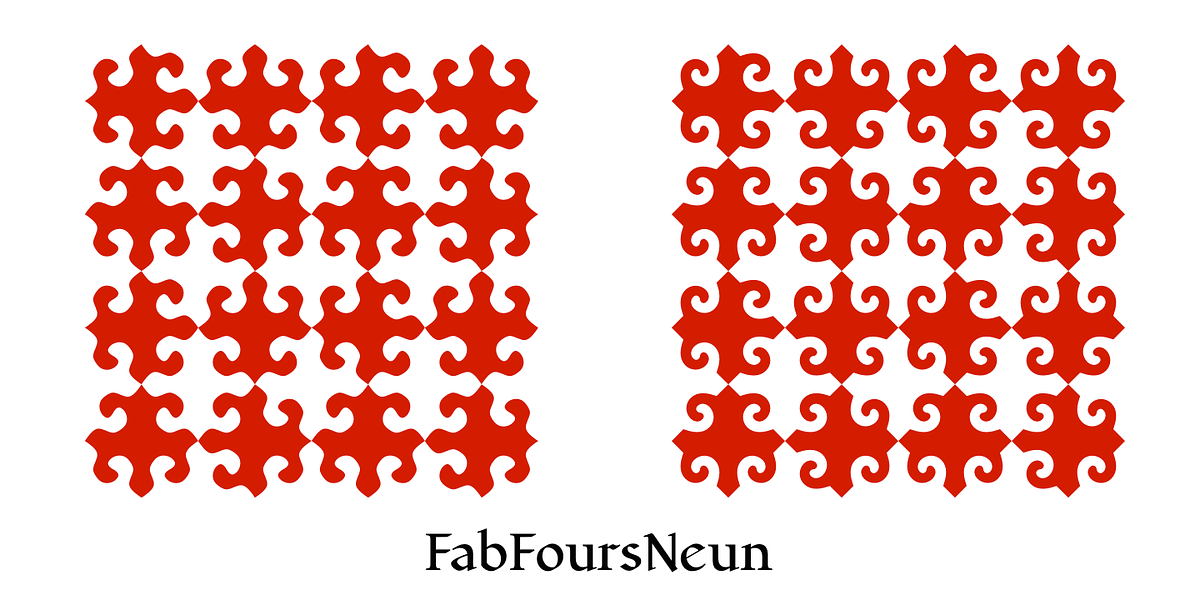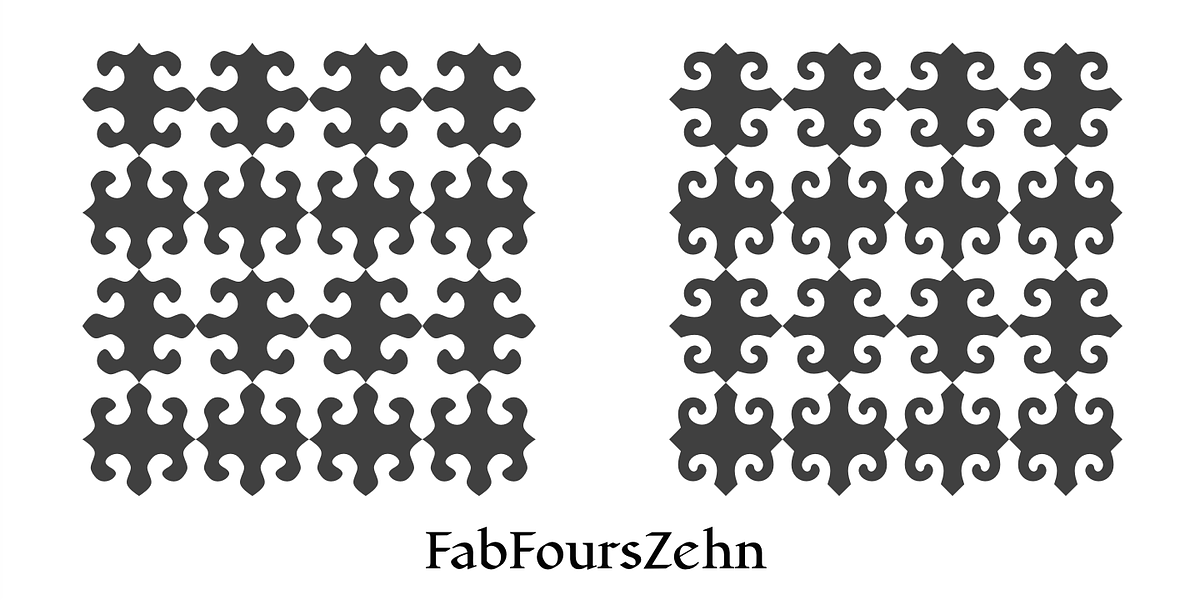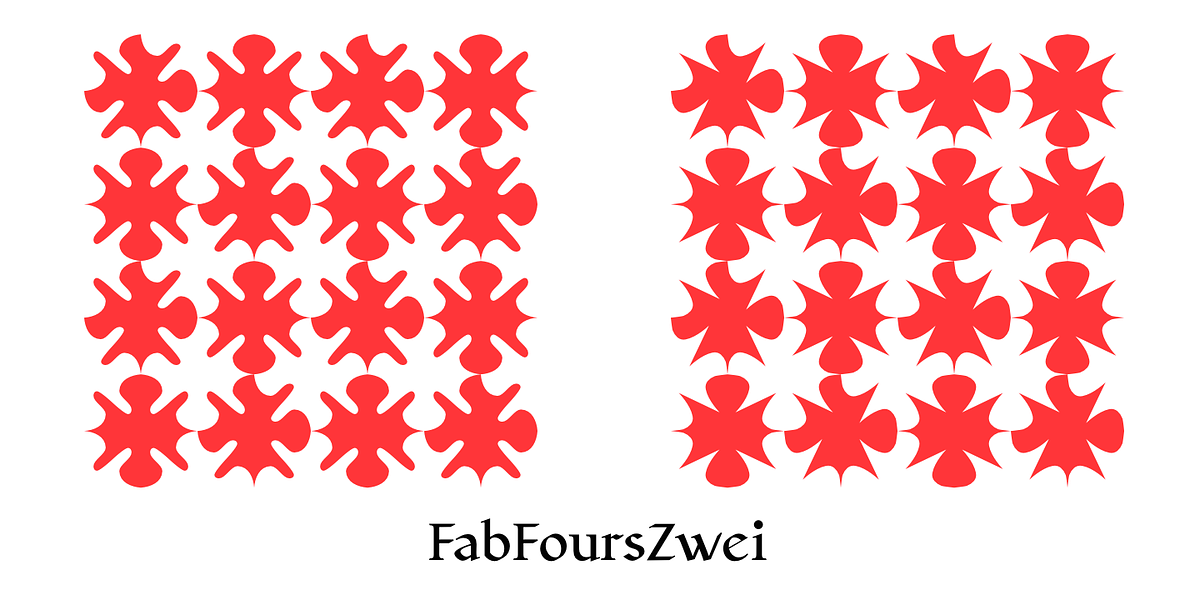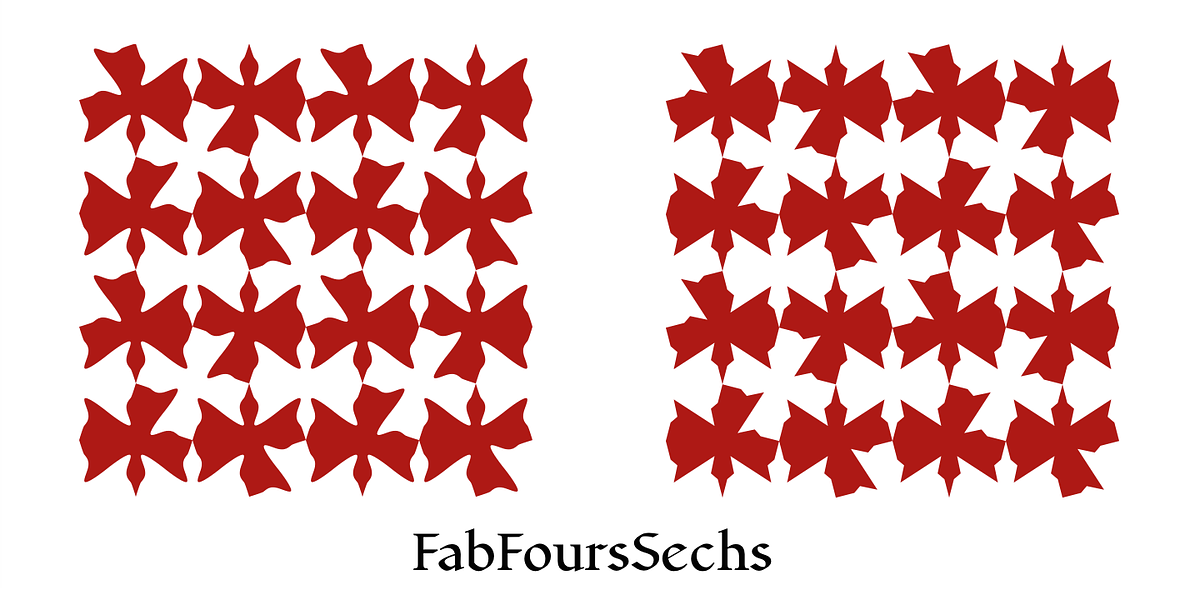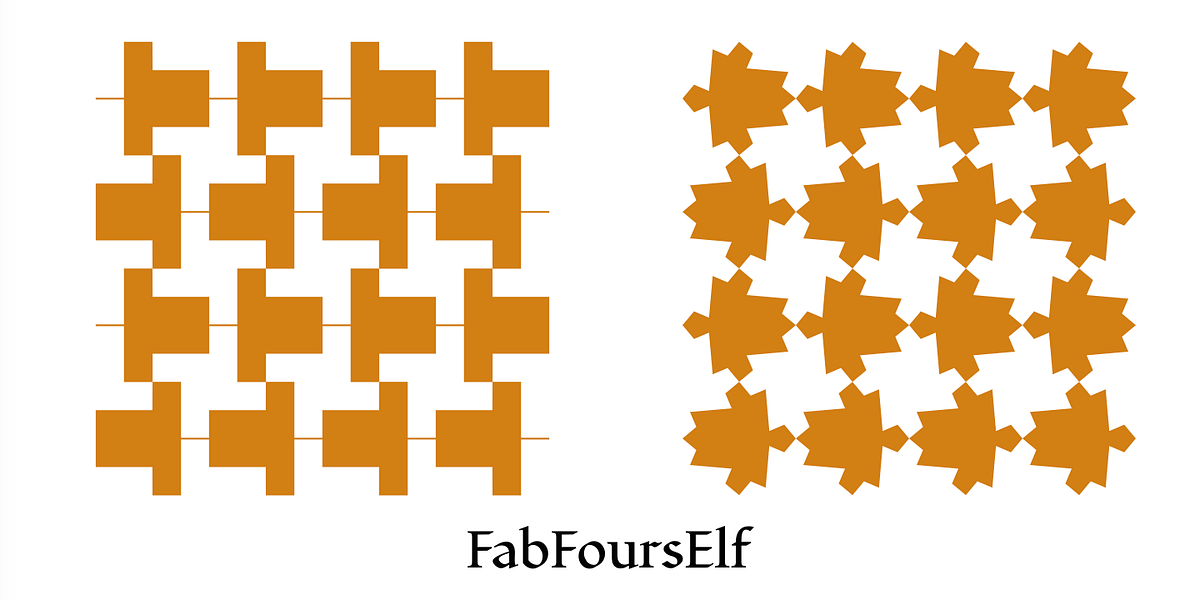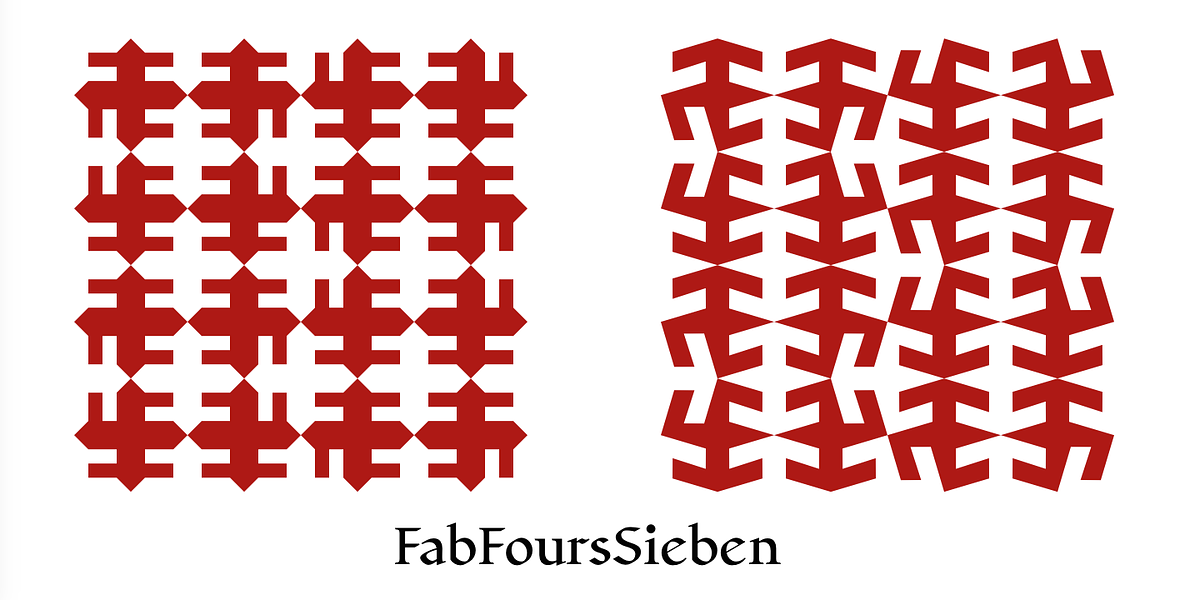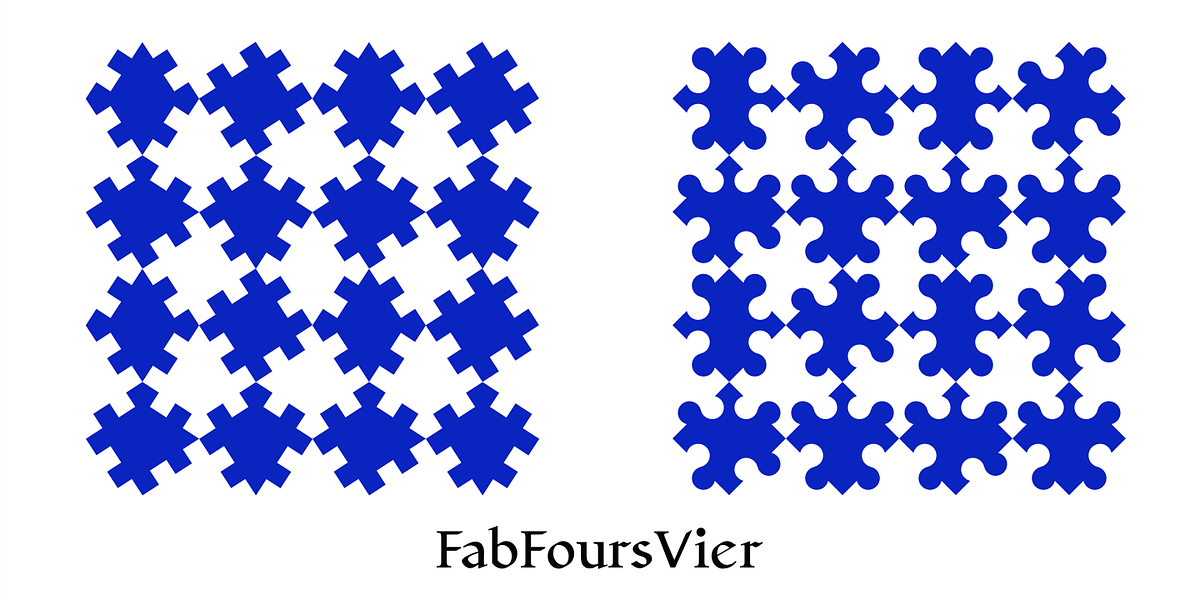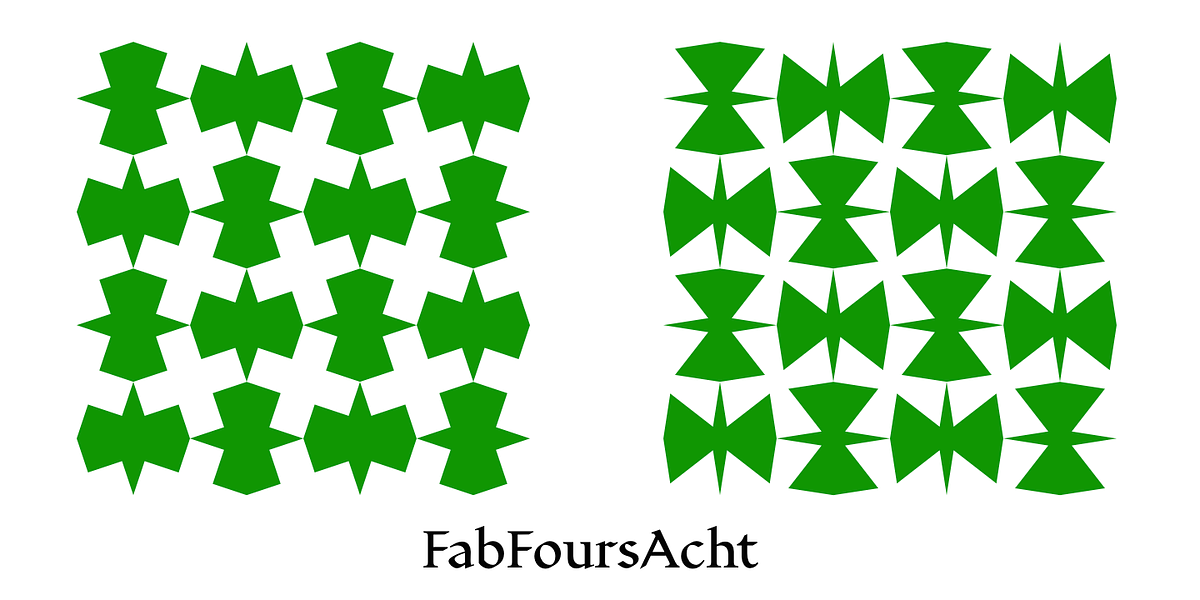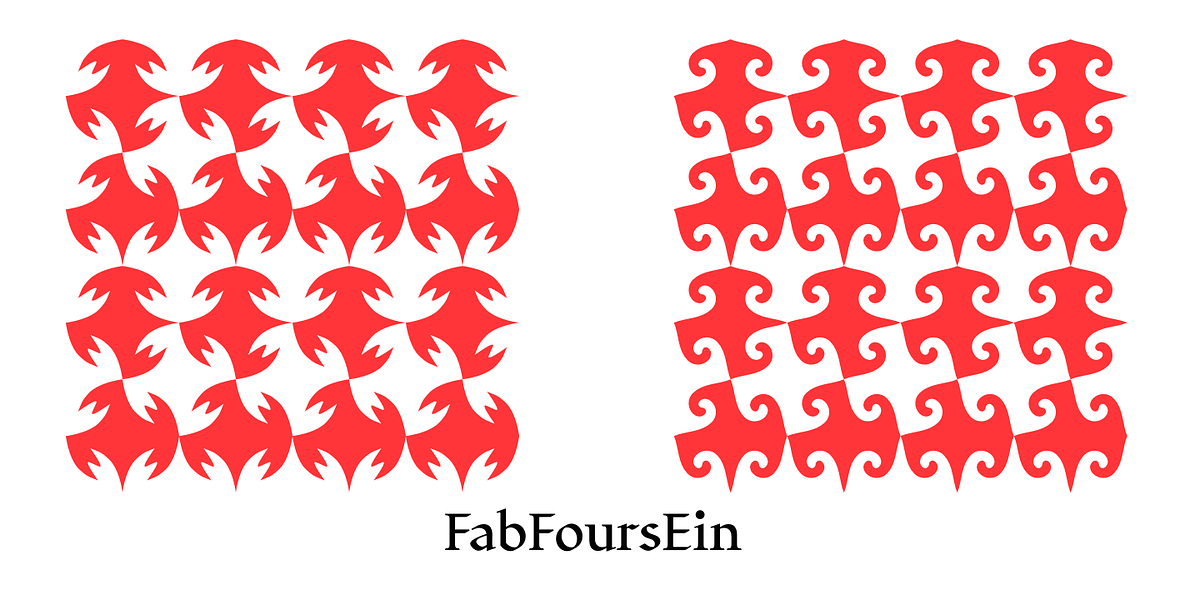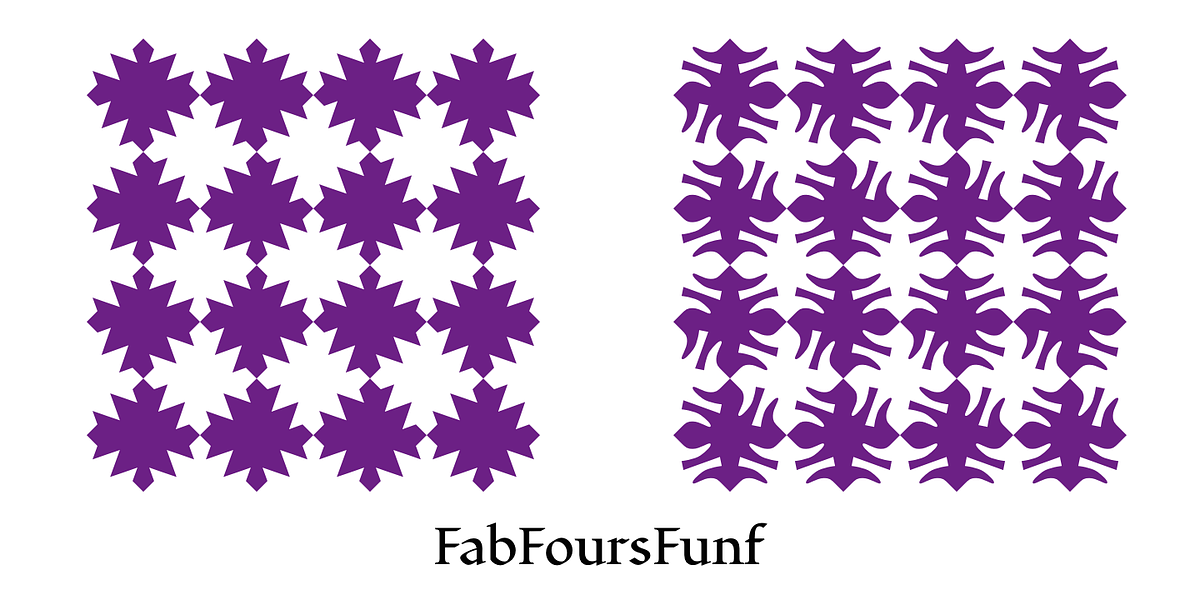
FabFours
A tessellation is a pattern in which a shape or tile fits together with copies of itself to fill the plane with no gaps or overlaps. One type of tessellation is formed with sides of center-point rotation, that is, one half of an edge is rotated 180 degrees to form the other half. If a square template is made with sides of identical center-point rotation, there are exactly four shapes that are possible.
If these shapes or tiles are fit together not edge to edge but vertex to vertex, the result is a checkerboard-like pattern of tiles and voids. However, the voids have four edges formed by the four possible shapes that the tiles can have, so the voids are limited to the same four shapes that that make up the tiles. The FabFours have 22 tile families that allow a wide variety of fascinating patterns. They form one, two, three, and four tile tessellation. Eleven of the seventeen symmetry groups can be formed with these patterns.
In each tile family two of the shapes have two possible orientations, one shape has four possible orientations, and one has eight, for a total of 16 tiles. Each font has two families, one on letters A-P the other on a-p. For some of the families there are also other tiles using the same edge but using triangular and hexagonal templates.
To get proper results, the leading must be set equal to the point size of the font.
I discovered these fabulous families and their decorative possibilities as I was working on a book about tessellations. I have not been able to find anyone else who has written about these families of four and their decorative possibilities when arranged vertex to vertex.